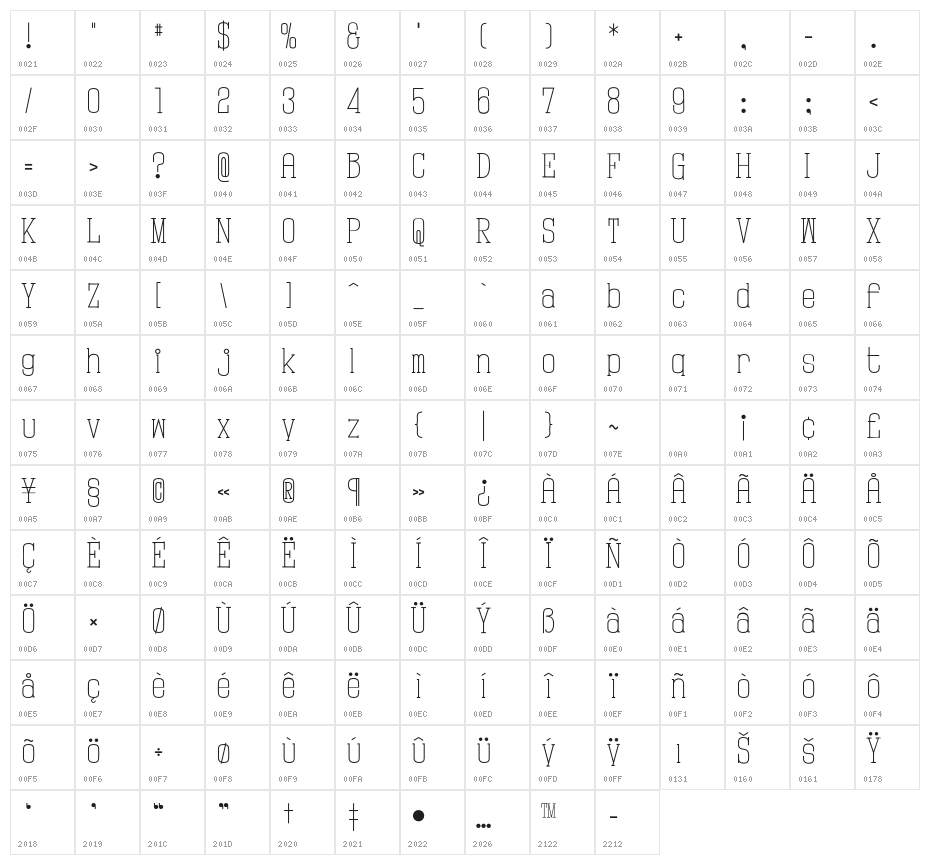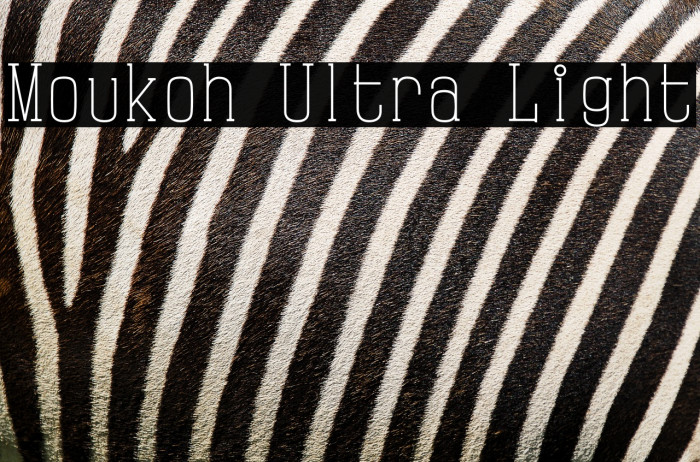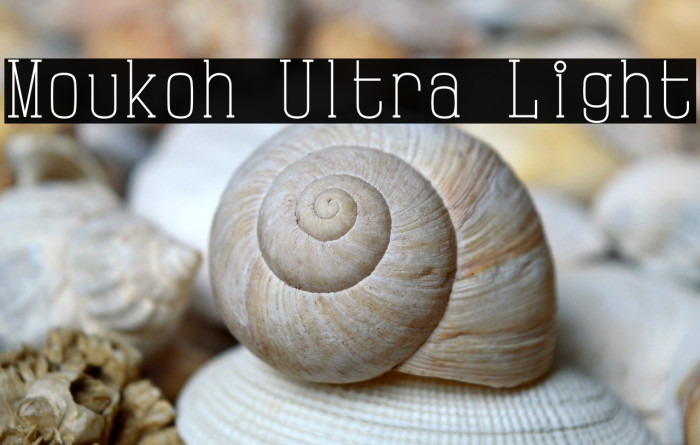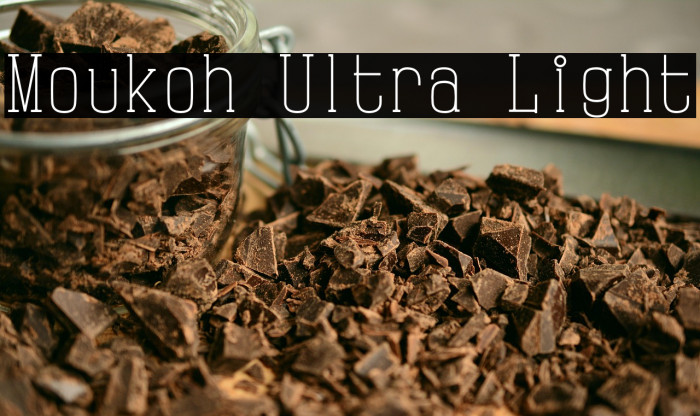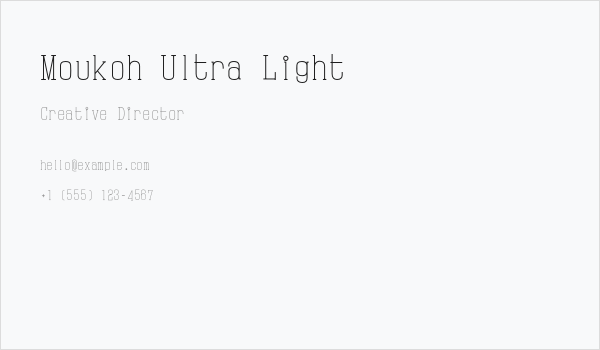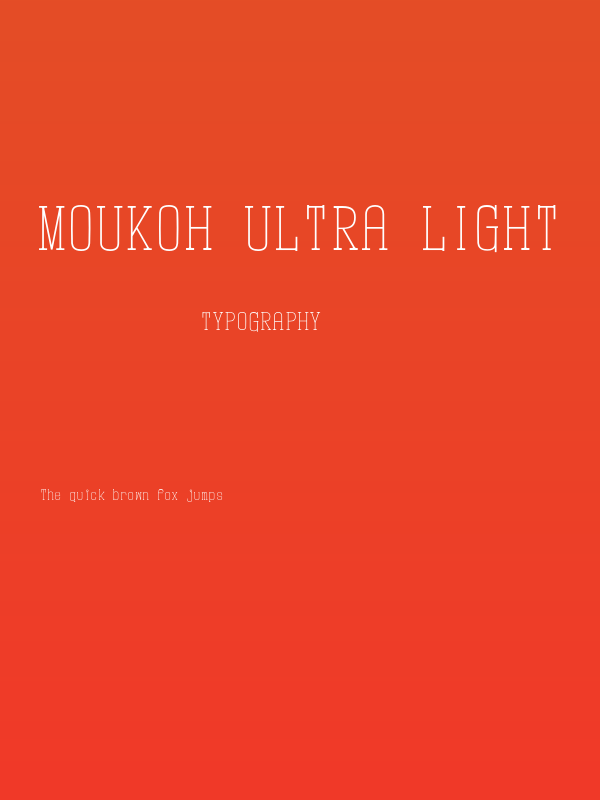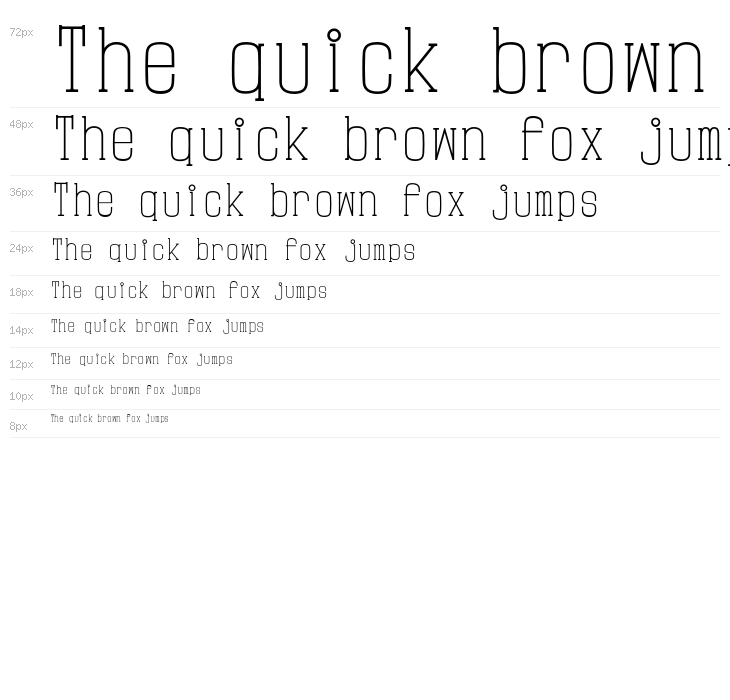
Moukoh Ultra Light Font
Moukoh Ultra Light Description
This font features a clean and modern design with a monospaced style, characterized by uniform character width. The ultra-light weight gives it a delicate and airy appearance, making it suitable for minimalist designs. The characters are tall and narrow, with a consistent stroke width that enhances readability. The uppercase letters are slightly taller than the lowercase, maintaining a balanced look. The numerals and special characters are designed to match the overall aesthetic, providing a cohesive appearance across all elements.
| Use Case | Coding, Technical documentation, Minimalist design |
| Proposed Projects | Ideal for coding environments, technical documentation, minimalist graphic designs, and modern branding projects. |